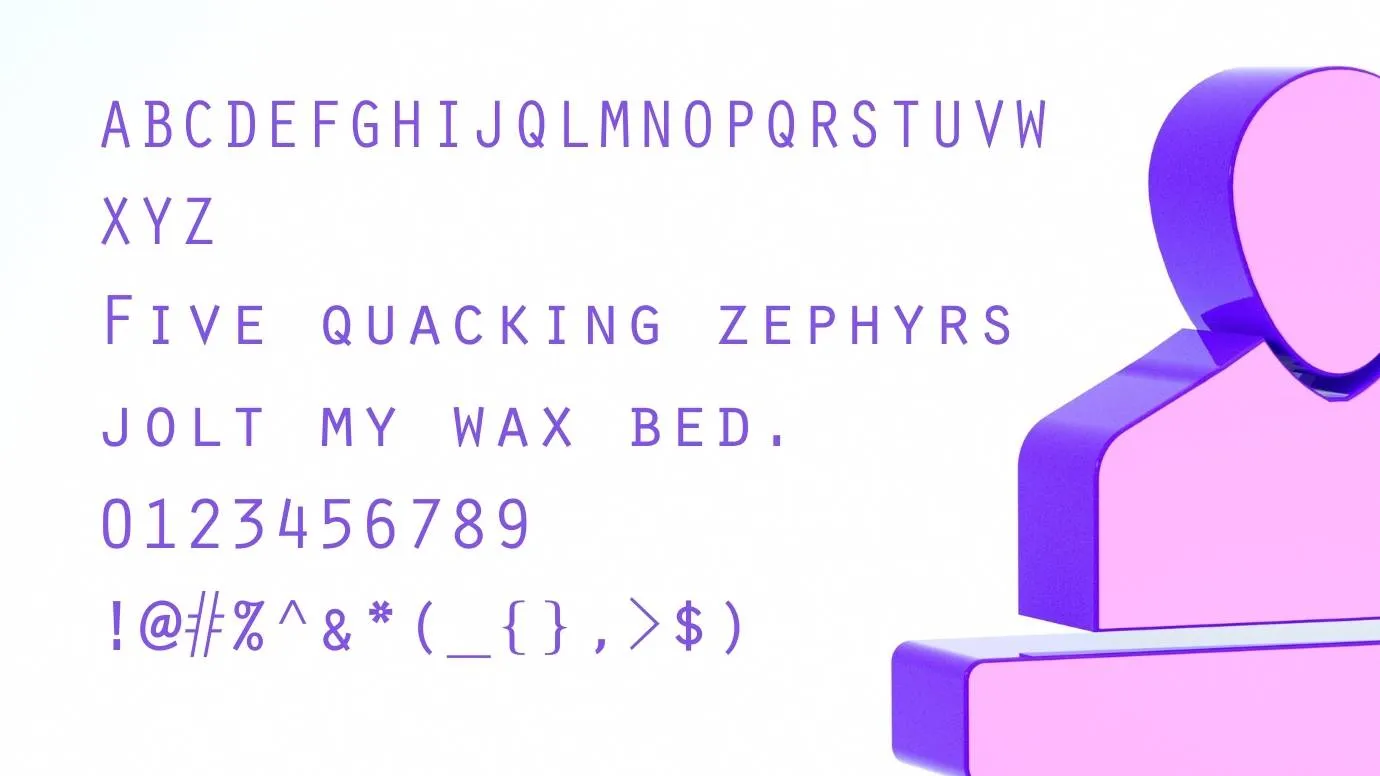
Orator Std Font features a sleek and sophisticated texture. Belonging to the Sans-Serif font family, it is renowned for its selection of refined and elegant typefaces. Its texture is optimized for both small and large screens, and it pairs effortlessly with other Sans-Serif fonts.
This clean and elegant texture style was designed by John Schepper. He is a well-reputed font designer who has also designed many of the famous fonts that are used in a number of designs and projects.
This font texture is constructed with three styles Regular, Bold, Medium, and Slanted. Each style of this family is comprised of capital letters, small letters, glyphs, punctuations, numbers, symbols, special characters, and many languages support.
This font is a member of the Sans-Serif Font family. This typeface has a clean and elegant texture visualization.